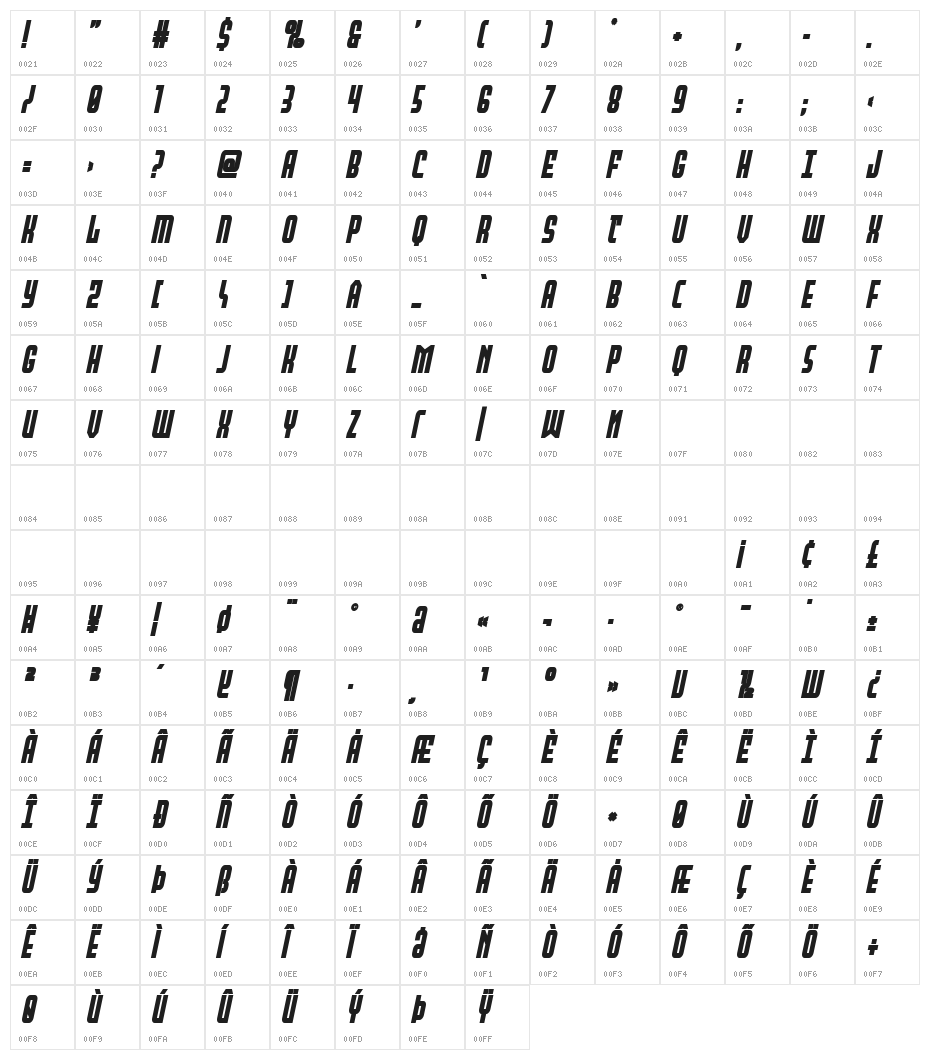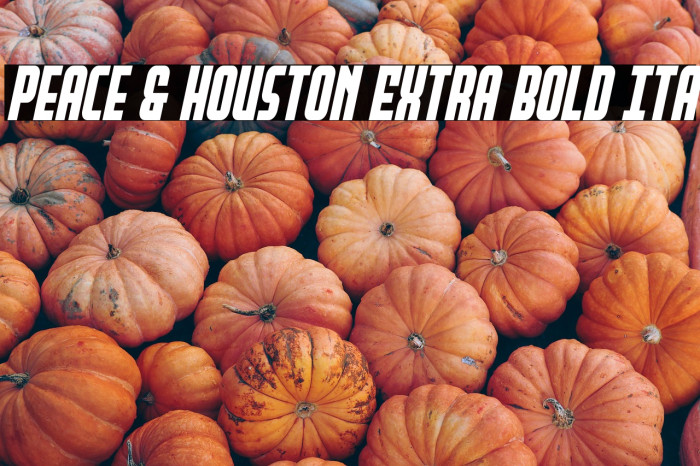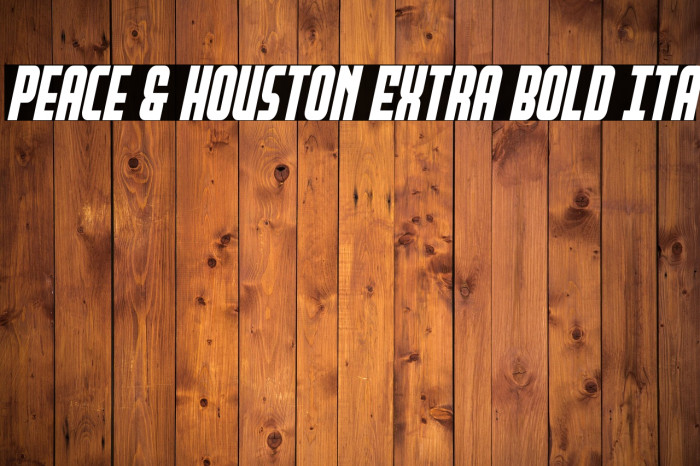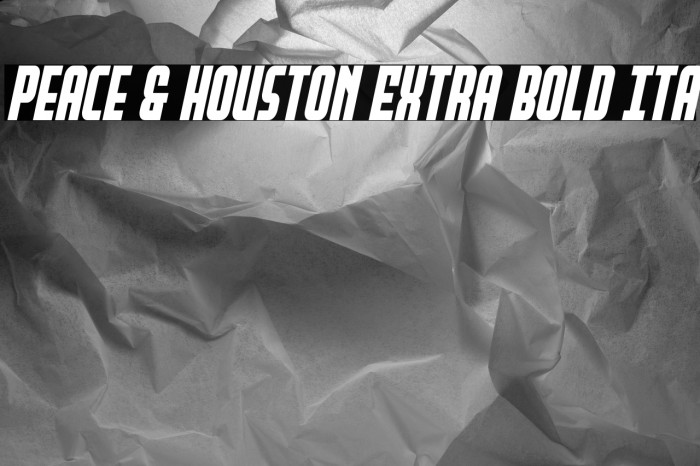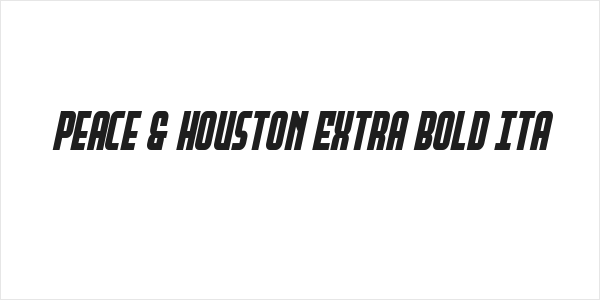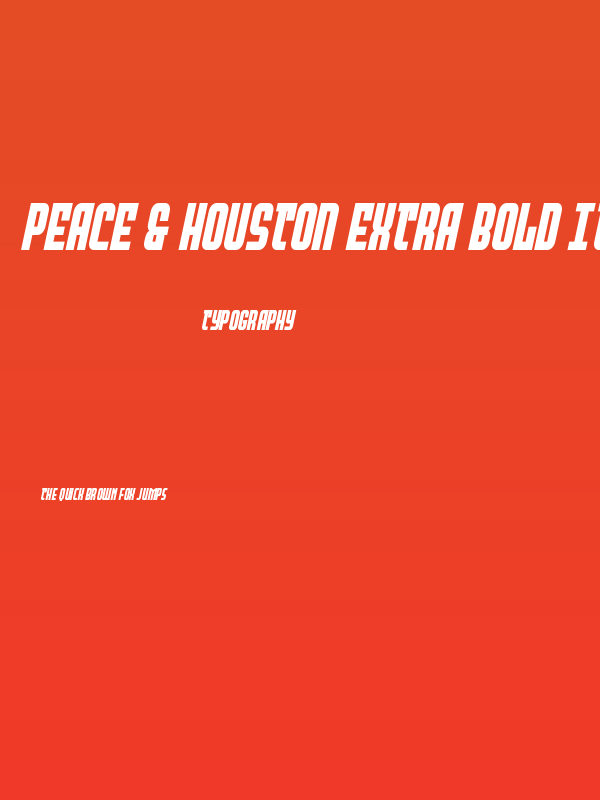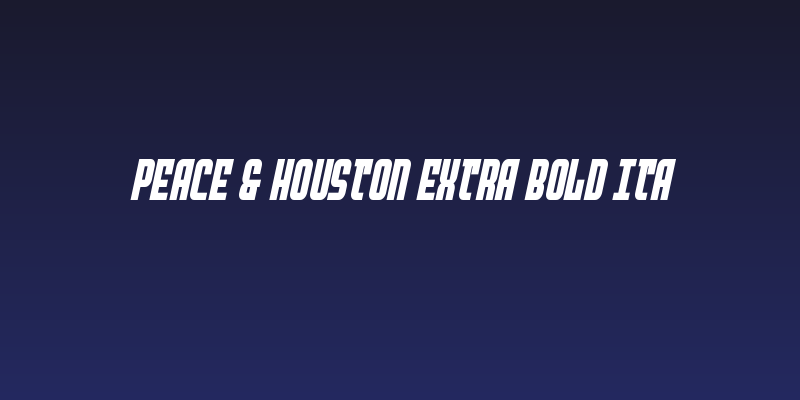
Peace & Houston Extra Bold Ita Font
Peace & Houston Extra Bold Ita Description
This font exhibits a bold and dynamic style with a strong presence. The characters are slanted, giving an italicized appearance, and feature thick strokes that convey a sense of power and urgency. The uppercase and lowercase letters maintain a consistent width, contributing to a uniform look across the text. The numbers and special characters are designed to match the boldness of the alphabet, ensuring a cohesive appearance. The font's overall design is modern and assertive, making it suitable for attention-grabbing headlines and impactful statements. The spacing between characters is tight, enhancing the compact and bold nature of the font.